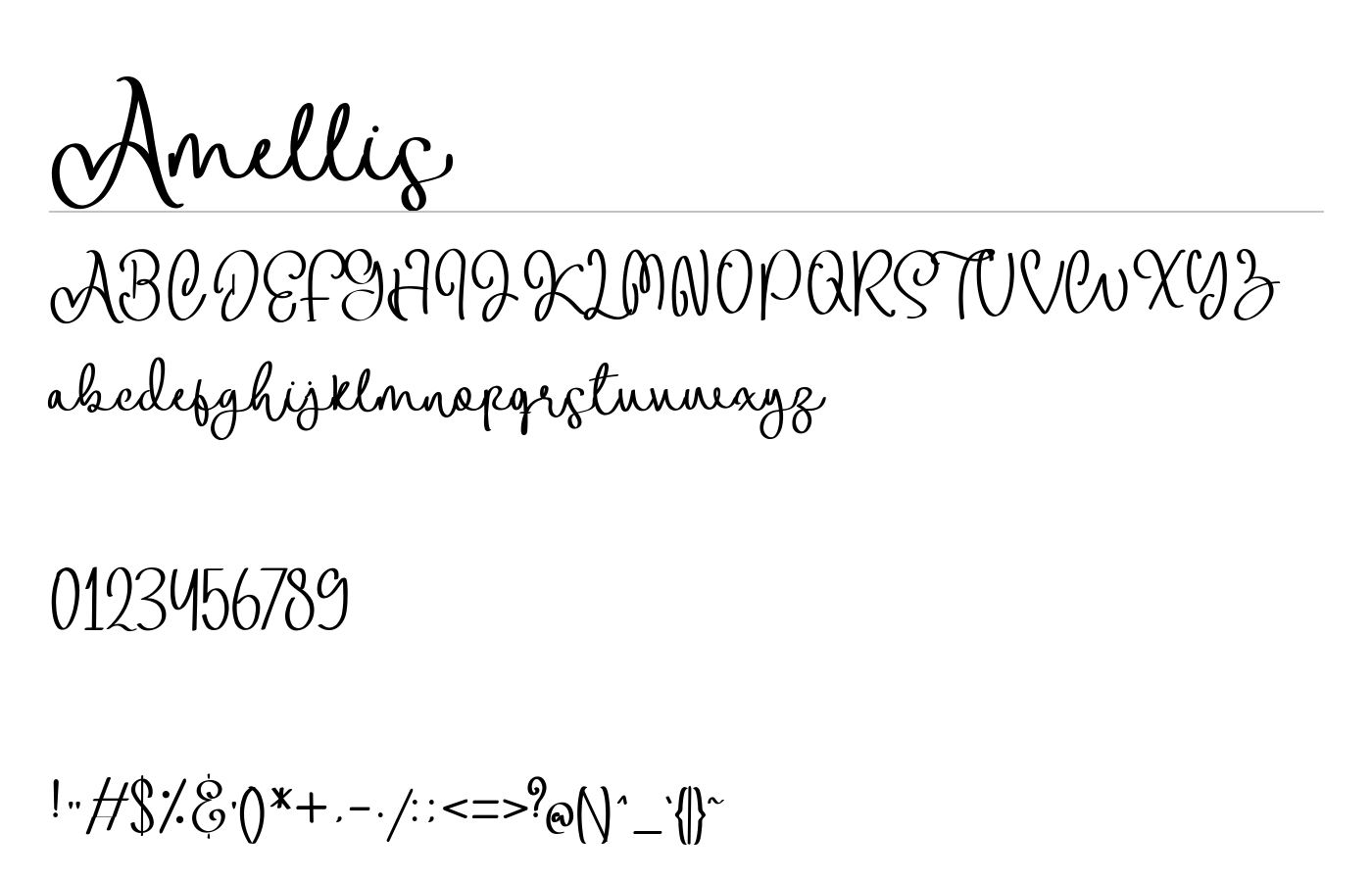
Amellis is an elegant, handwritten script font featuring airy, flowing letterforms with thin, consistent strokes and distinctive swirls in uppercase letters. Its delicate and modern style makes it ideal for feminine branding, invitations, and decorative headlines where a touch of sophistication and personal charm is desired. This font works best in creative projects that benefit from a graceful and approachable aesthetic.
Amellis Font
About Amellis Font